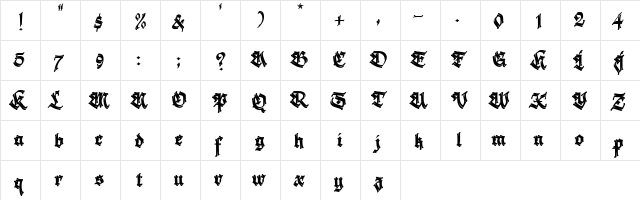
Krakato Fraktur Regular
Design Context for Krakato Fraktur Typeface
Krakato Fraktur draws on the rich tradition of blackletter calligraphy, with dense, angular strokes that evoke medieval manuscripts and old-world craftsmanship.
Well-suited to band logos, craft beer branding, tattoo lettering, and heritage-themed identities.
Font Pairing: Pair with a clean neutral sans-serif for body copy to let Krakato Fraktur's character lead without overwhelming the composition.
Pro Tip: Use Krakato Fraktur sparingly at large sizes. Even a single word set in blackletter can define the visual register of an entire design.